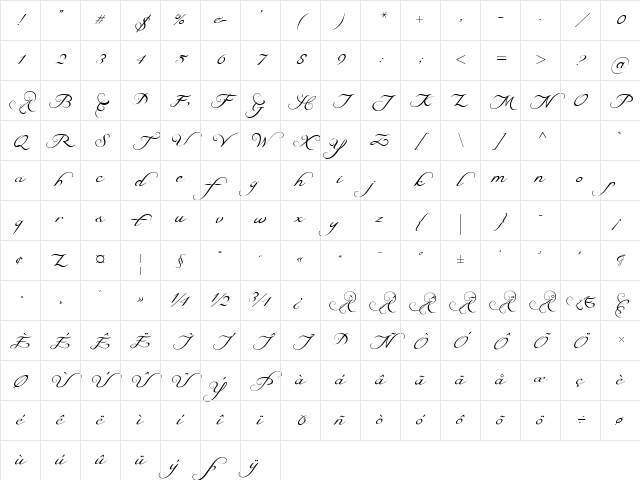
Natalya Alternate One Alternate One
Style: Alternate One
Foundry: Jeremy Dooley
Design Context for Natalya Alternate One
Natalya Alternate One is a composed and adaptable typeface that performs quietly and consistently across a wide range of design contexts.
Who designed the Natalya Alternate One font?
This font was published by Jeremy Dooley. Check the technical specs section for copyright and designer details.